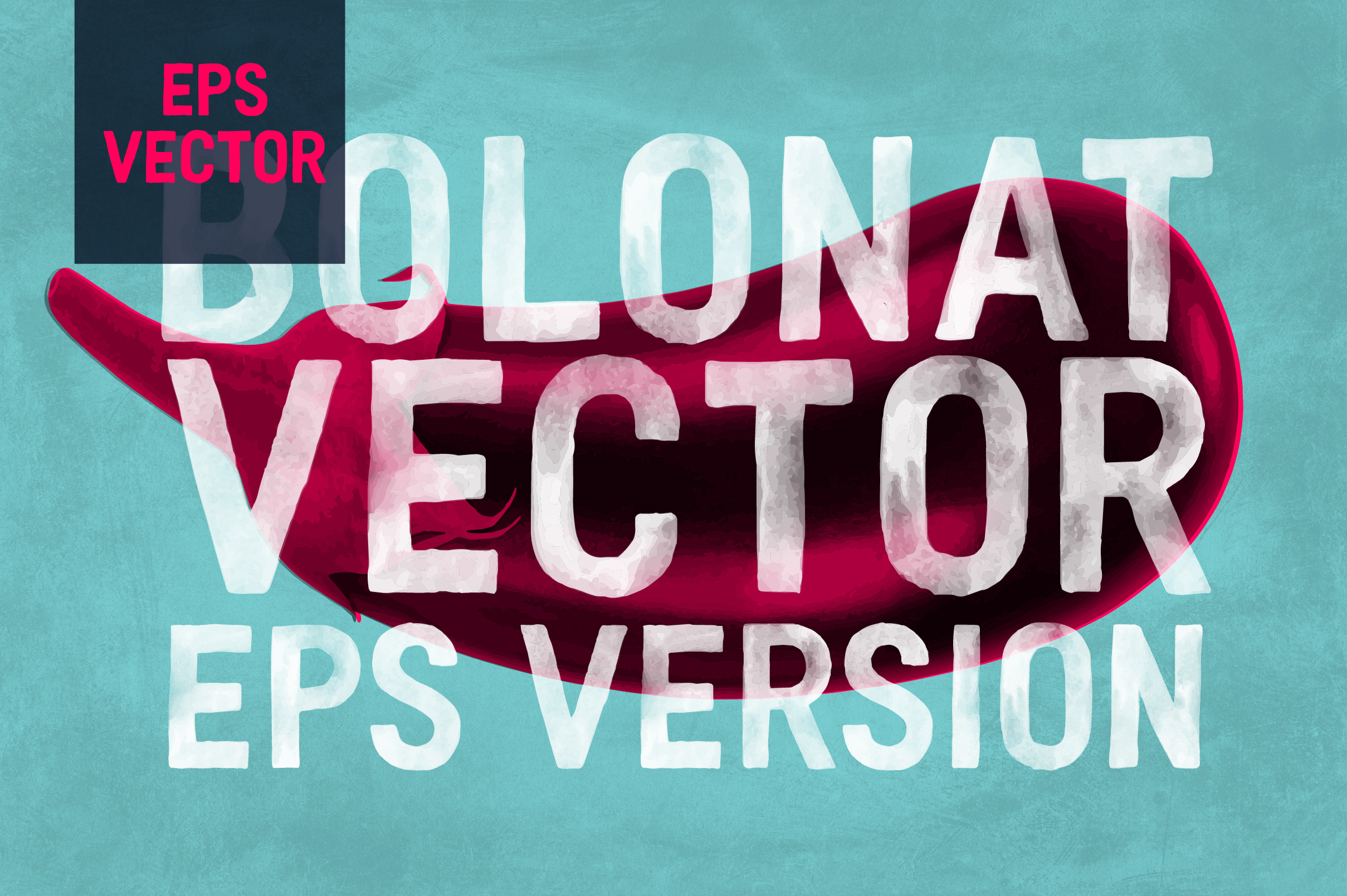
Bolonat Vector Font - EPS Version
The Original Ink Artwork which lead to the Bolonat Family of Fonts, Bolonat Vector consists of Upper Case and Numerals in Vector EPS Only. Includes both the White Ink and Blue Ink versions. Actual Fonts of Bolonat are available Separately.
THE BOLONAT FAMILY:
VECTOR - The original Ink art work which led to the creation of Bolonat font. Included is the "White" version and original "Blue" ink version. (Included)